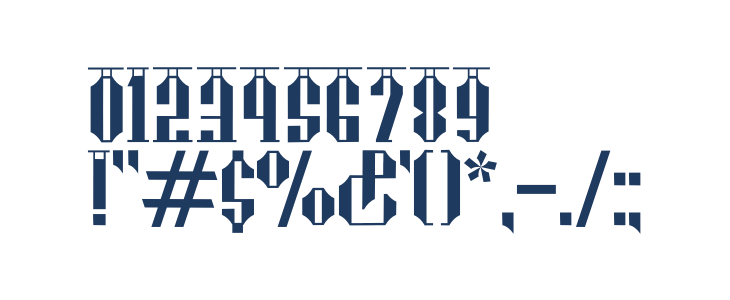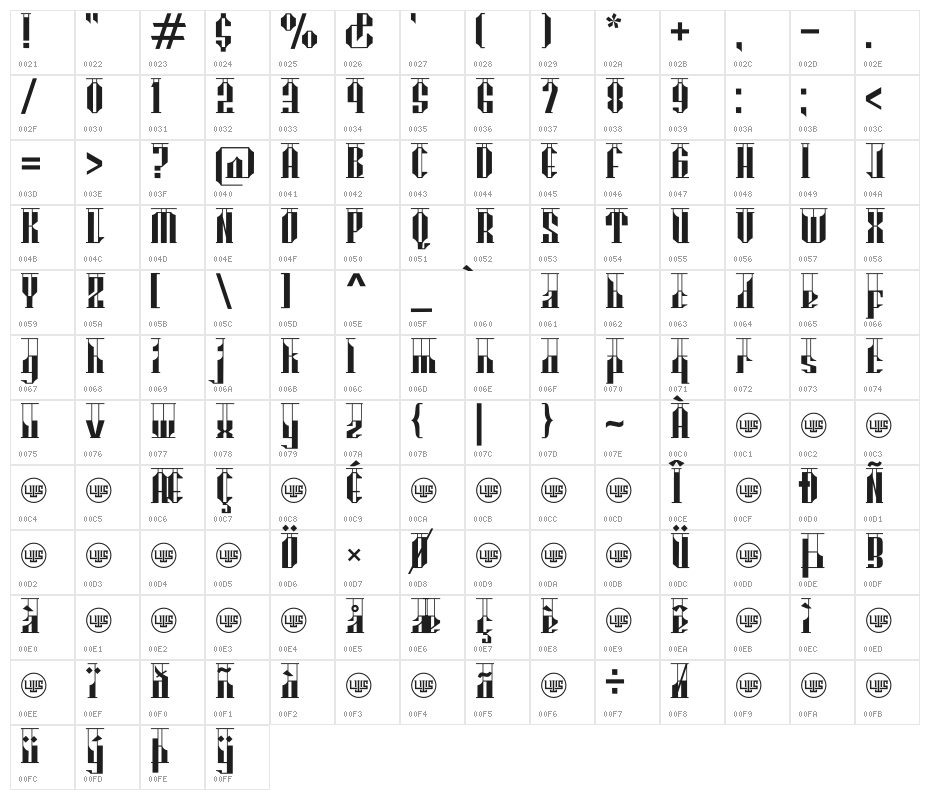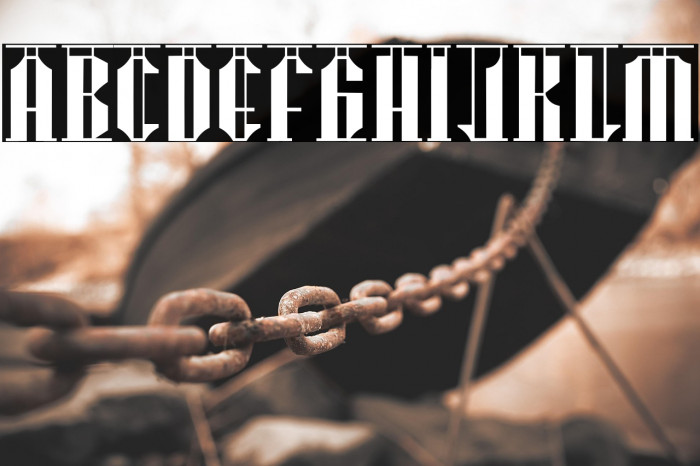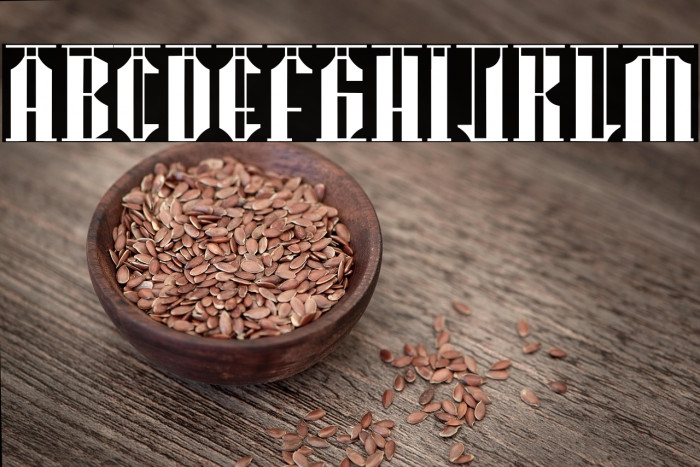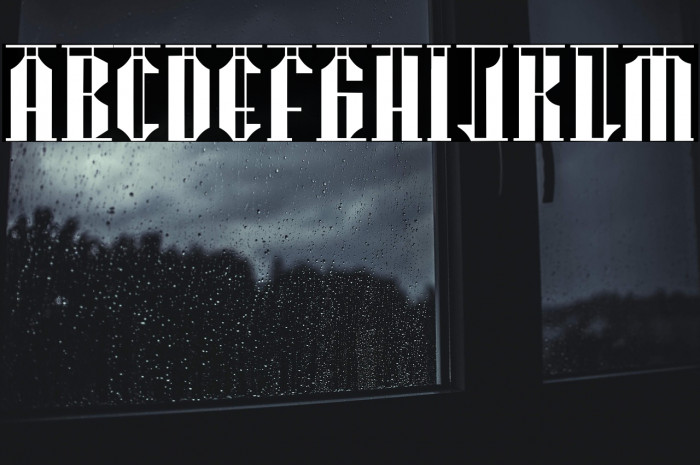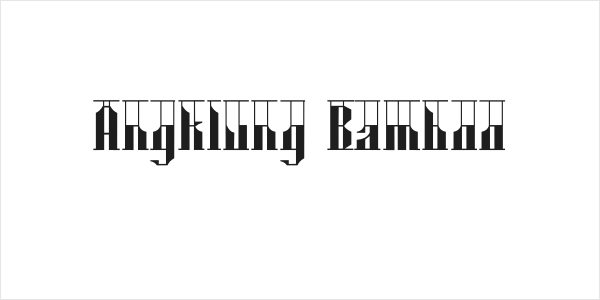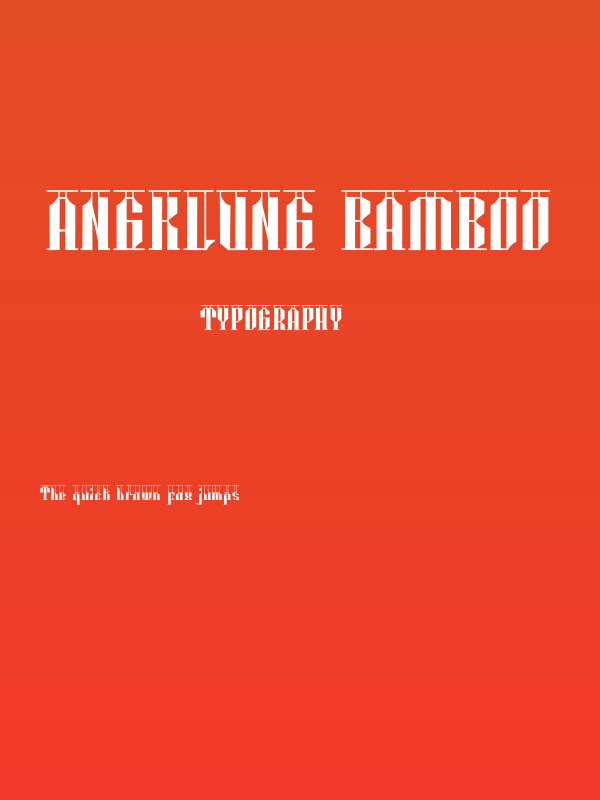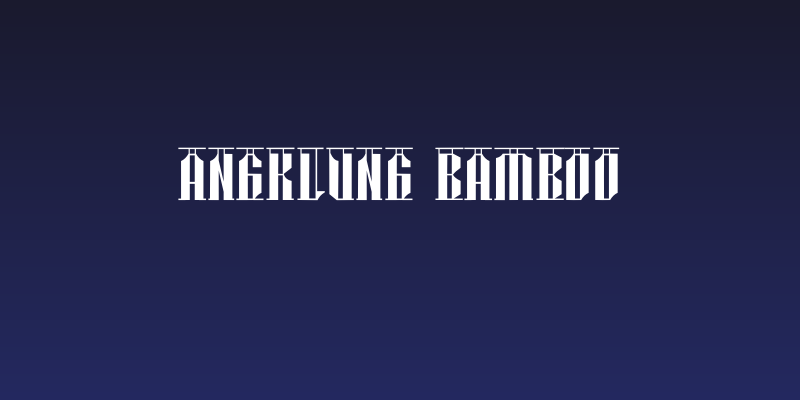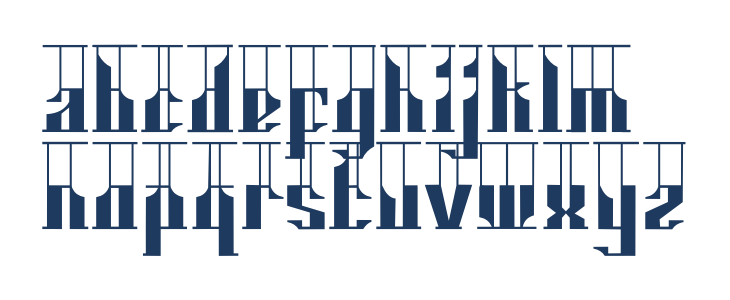
Angklung Bamboo Font
Angklung Bamboo Description
This font features a bold, geometric design with a strong emphasis on vertical lines and sharp angles. The characters are constructed with a unique, almost architectural style that combines elements of traditional and modern design. Each letter is distinct, with a consistent use of thick vertical strokes and thinner horizontal lines, creating a high-contrast appearance. The uppercase and lowercase letters maintain a cohesive look, while the numerals and special characters complement the overall aesthetic. This font's striking appearance makes it ideal for projects that require a bold and memorable visual impact.